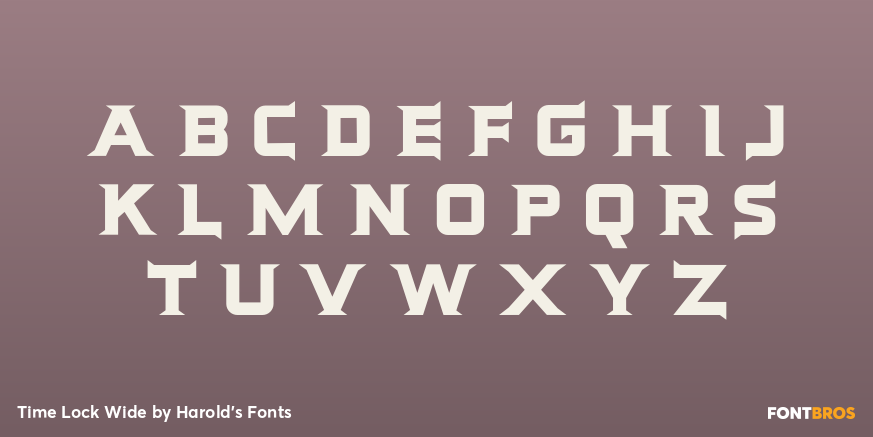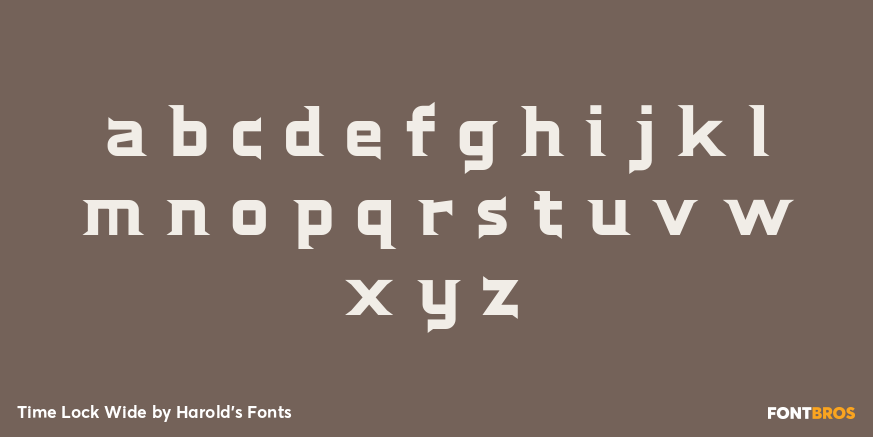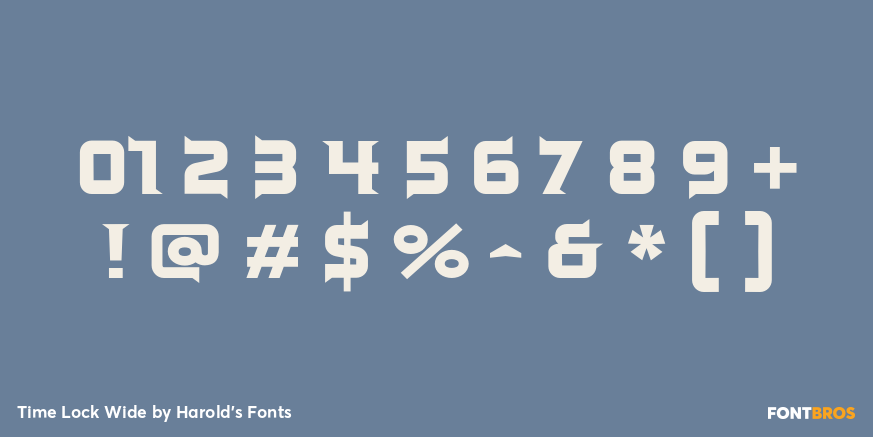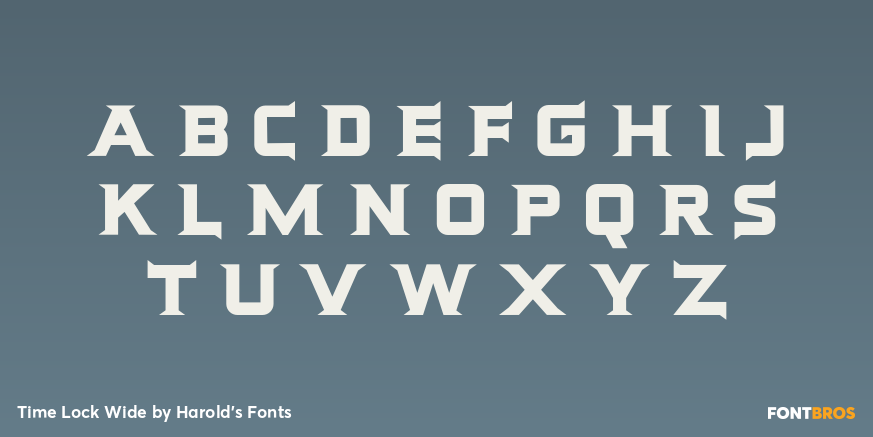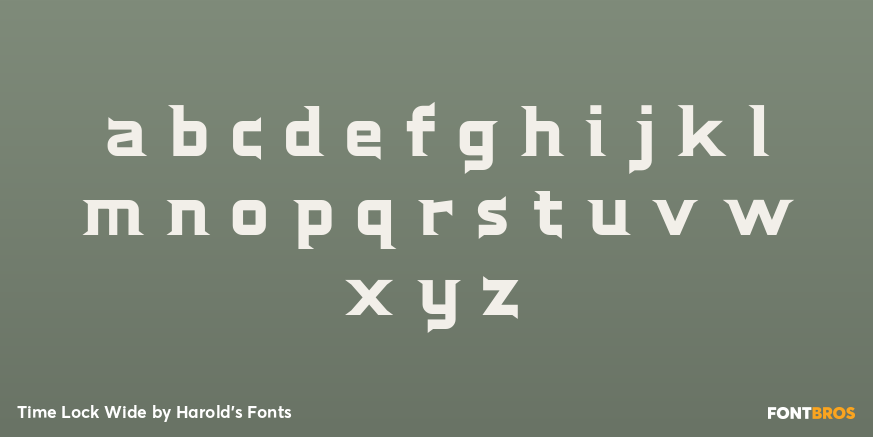
Time Lock Wide
TIME LOCK is a 6-font family with an exciting retro-futuristic feel. Sleek and streamlined, with distinctive triangular serifs strategically placed like fins. In three weights with matching oblique fonts for even better aerodynamics. Time Lock was inspired by the trailer for the 1960 film, The Time Machine, very different from the poster or the main titles;  I’ve expanded the design to include 3 widths each with upper-and lowercase.
Time Lock Wide by Harold's Fonts